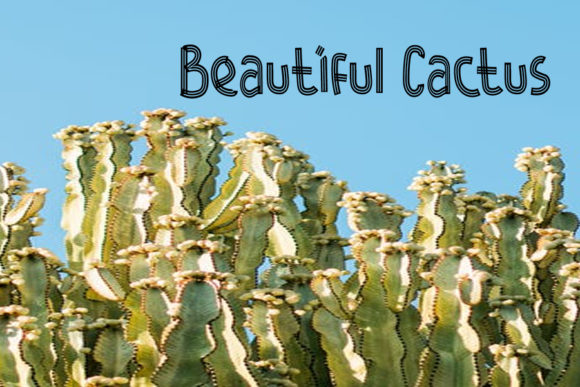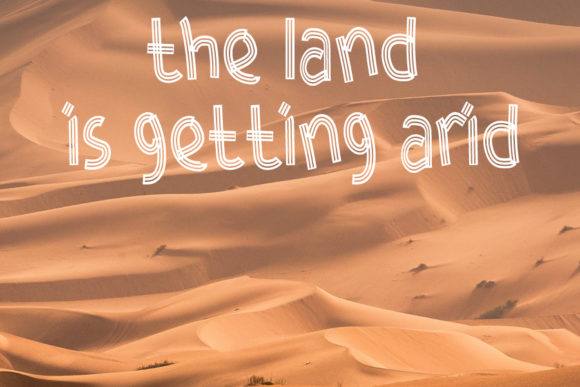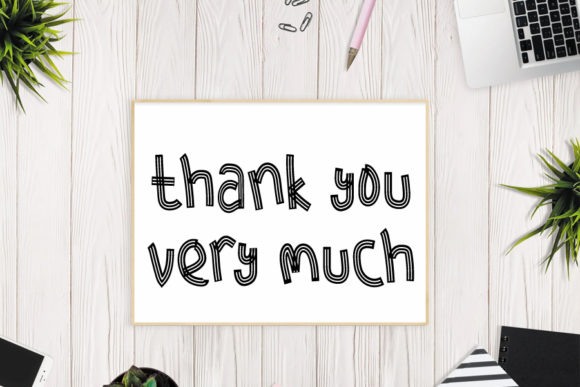
Introducing the Desert Cactus Font: A Cool and Charming Display Font
Are you looking for a font that can add a touch of whimsy and charm to your designs? Look no further than the Desert Cactus Font. This cool and charming display font is perfect for designers and crafters who want to add a bit of personality to their projects. In this article, we’ll take a closer look at the Desert Cactus Font, its features, and how you can use it to brighten up your designs.
What is the Desert Cactus Font?
The Desert Cactus Font is a unique and eye-catching display font that is inspired by the prickly yet charming desert cactus. This font is designed to be whimsical and genuine, making it perfect for a variety of design projects, from posters and flyers to invitations and crafts. With its bold and playful letters, the Desert Cactus Font is sure to add a touch of personality to any design.
Features of the Desert Cactus Font
The Desert Cactus Font has several features that make it a great choice for designers and crafters. Some of its key features include:
- Unique and eye-catching design: The Desert Cactus Font has a unique and eye-catching design that is sure to stand out in any design project.
- Whimsical and genuine feel: This font has a whimsical and genuine feel that makes it perfect for designs that require a bit of personality.
- Bold and playful letters: The Desert Cactus Font has bold and playful letters that are sure to add a touch of fun to any design.
- Easy to read: Despite its bold and playful design, the Desert Cactus Font is easy to read, making it perfect for use in a variety of design projects.
How to Use the Desert Cactus Font
The Desert Cactus Font is a versatile font that can be used in a variety of design projects. Here are a few ideas for how you can use this font:
- Posters and flyers: The Desert Cactus Font is perfect for use in posters and flyers, where its bold and playful design can help grab attention.
- Invitations: This font is also great for use in invitations, where its whimsical and genuine feel can help set the tone for a fun and festive event.
- Crafts: The Desert Cactus Font is a great choice for crafters who want to add a bit of personality to their projects, from scrapbooking to card making.
- Digital designs: This font can also be used in digital designs, such as social media graphics and blog posts, where its bold and playful design can help add visual interest.
Tips for Using the Desert Cactus Font
Here are a few tips for using the Desert Cactus Font in your designs:
- Use it sparingly: While the Desert Cactus Font is a fun and playful font, it can be overwhelming if used too much. Use it sparingly to add a bit of personality to your designs.
- Pair it with other fonts: The Desert Cactus Font can be paired with other fonts to create a unique and interesting design. Try pairing it with a clean and simple font to create contrast.
- Experiment with colors: The Desert Cactus Font can be used with a variety of colors to create a unique and eye-catching design. Experiment with different colors to find the one that works best for your project.
The Desert Cactus Font is a cool and charming display font that is perfect for designers and crafters who want to add a bit of personality to their projects. With its unique and eye-catching design, whimsical and genuine feel, and bold and playful letters, this font is sure to brighten up any design. Whether you’re creating posters and flyers, invitations, crafts, or digital designs, the Desert Cactus Font is a great choice. So why not give it a try and see the difference it can make in your designs?